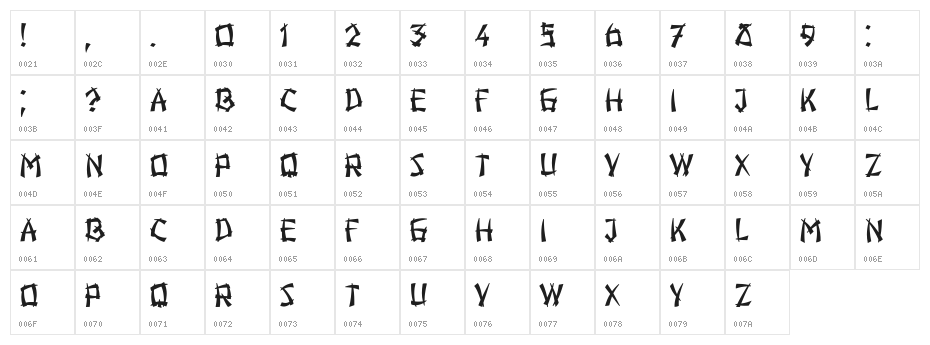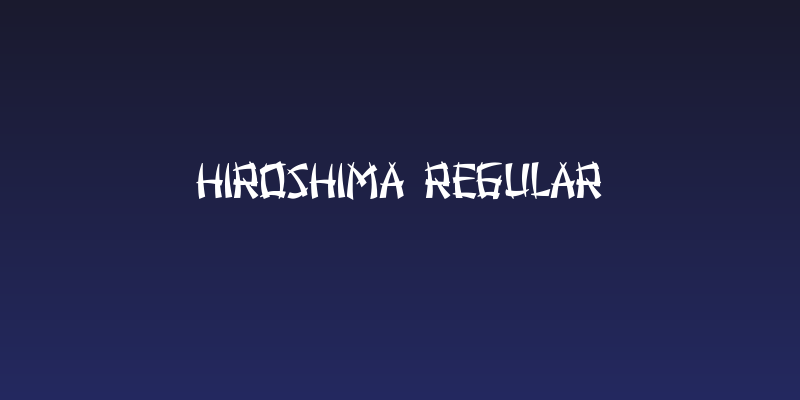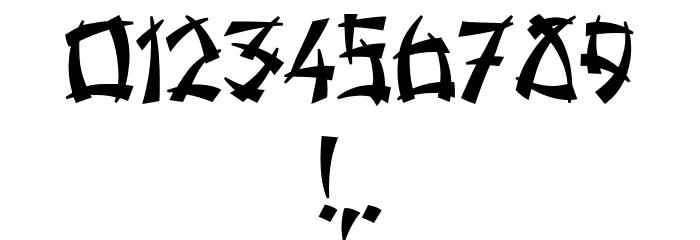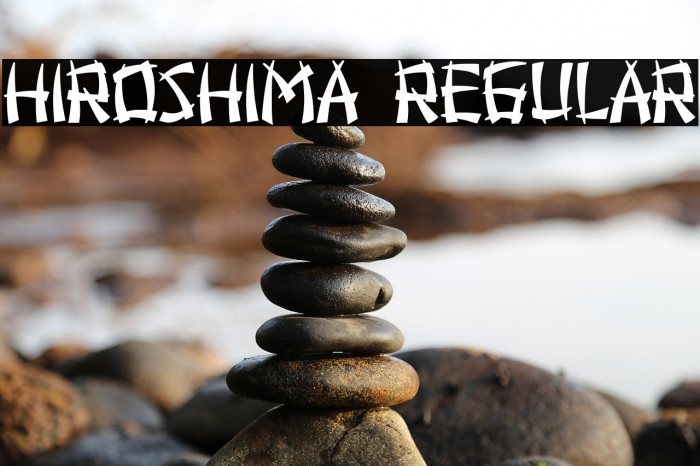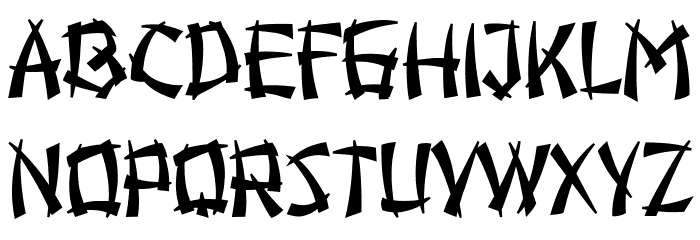
Hiroshima Regular Font
Hiroshima Regular Description
This font features a bold, edgy design with sharp, angular strokes that give it a distinctive and rebellious appearance. The characters are crafted with a sense of movement and energy, resembling a graffiti or street art style. The uppercase and lowercase letters maintain a consistent aesthetic, with exaggerated serifs and dynamic angles. Numbers and special characters follow the same bold and striking design, making the font suitable for attention-grabbing headlines or artistic projects. The overall look is both modern and unconventional, perfect for projects that require a bold statement.
| Proposed Projects | Ideal for street art designs, music album covers, edgy branding, and posters. |